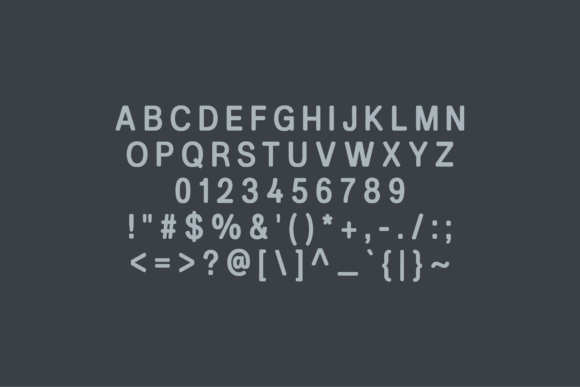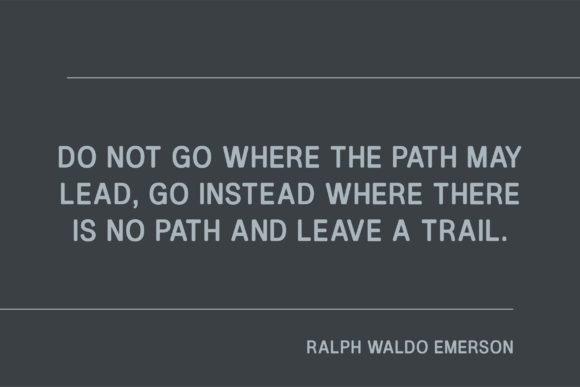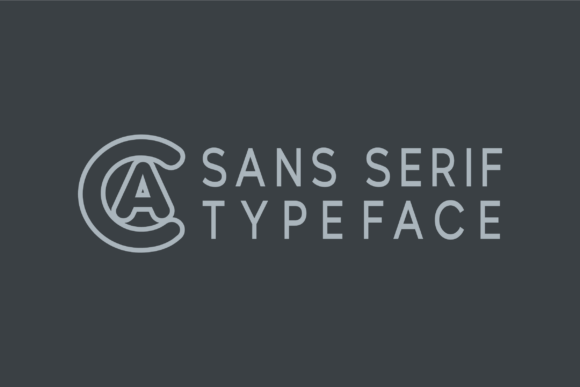
Introducing Creepberry: The Modern, Classy Sans Serif Typeface
In the world of typography, a new font has emerged that’s taking the design community by storm. Say hello to Creepberry, a modern, classy sans serif typeface that’s perfect for a wide range of creative projects. Whether you’re a designer, crafty DIY enthusiast, or simply someone who appreciates beautiful typography, Creepberry is sure to captivate you with its clean lines, elegant curves, and exceptional versatility.
What is Creepberry Font?
Creepberry is a sans serif typeface that boasts a comprehensive character set, including upper characters, numbers 0-9, and a range of punctuation and symbols. This extensive character set makes it an extremely versatile font, suitable for various applications, from logos and weddings to invitations, quotes, advertisements, print materials, magazines, and more.
Key Features of Creepberry Font
- Modern and Classy Design: Creepberry’s sleek, sans serif design makes it perfect for projects that require a contemporary look and feel.
- Comprehensive Character Set: The font includes a wide range of characters, numbers, punctuation, and symbols, ensuring that you have everything you need to create stunning text-based designs.
- Highly Versatile: Creepberry’s adaptability makes it suitable for various projects, from logos and branding to print materials, digital media, and more.
- Elegant Curves and Lines: The font’s smooth curves and clean lines create a sophisticated, elegant look that’s sure to elevate your designs.
Use Cases for Creepberry Font
Creepberry’s versatility makes it an excellent choice for a wide range of projects, including:
- Logos and Branding: Create a lasting impression with a custom logo or brand identity that showcases your unique style.
- Weddings and Invitations: Add a touch of elegance to your wedding invitations, save-the-date cards, and other stationery.
- Quotes and Typography: Use Creepberry to create stunning quote posters, social media graphics, and other typography-based designs.
- Advertisements and Marketing: Make your ads stand out with a modern, attention-grabbing font that’s sure to capture your audience’s attention.
- Print Materials and Magazines: Elevate your print designs with Creepberry’s clean, sophisticated look.
Why Choose Creepberry Font?
With so many fonts available, why choose Creepberry? Here are just a few reasons why designers and crafters are falling in love with this modern sans serif typeface:
- Unique and Modern Design: Creepberry’s distinctive look sets it apart from other fonts, ensuring your designs stand out from the crowd.
- Exceptional Legibility: The font’s clean lines and elegant curves make it easy to read, even at small sizes.
In conclusion, Creepberry is a game-changing font that’s sure to revolutionize your design workflow. Its modern, classy design, comprehensive character set, and exceptional versatility make it an excellent choice for a wide range of creative projects. Whether you’re a seasoned designer or a crafty DIY enthusiast, Creepberry is sure to inspire you to create stunning text-based designs that captivate and engage your audience.